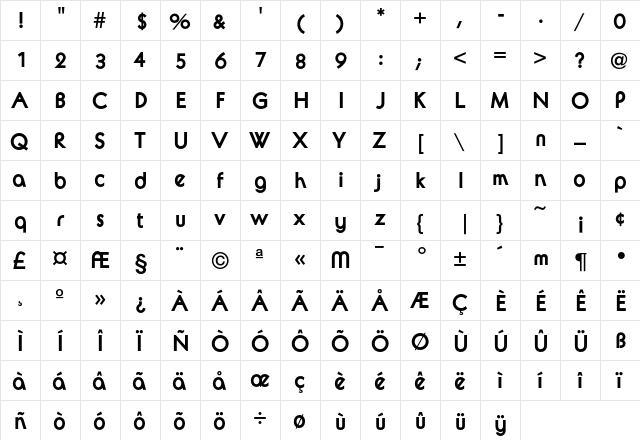
Avalon Bold
Design Context for Avalon Typeface
Avalon offers clean, dependable letterforms without strong stylistic allegiance, making it a practical choice for designers who need flexibility. Its bold stroke weight gives it real presence on the page.
Pro Tip: Use Avalon in both headline and body roles to test its range before committing to a single application.